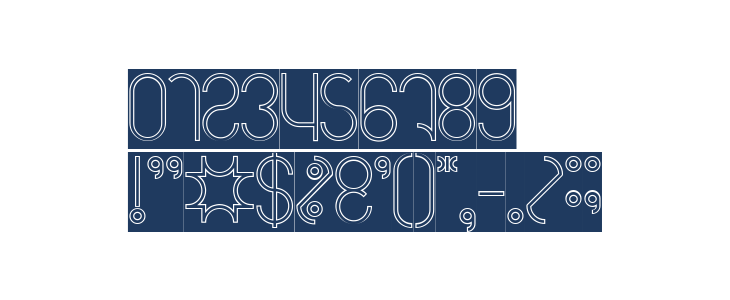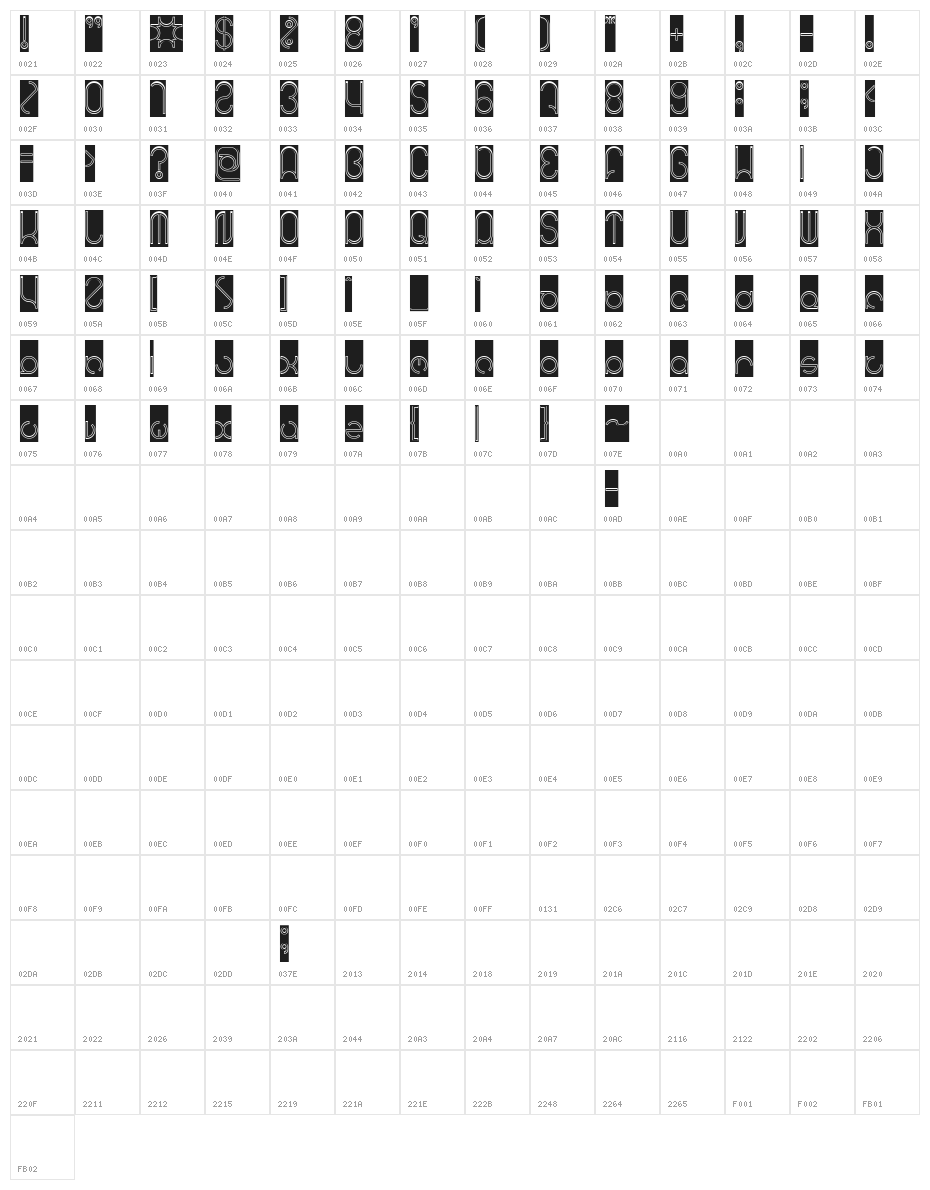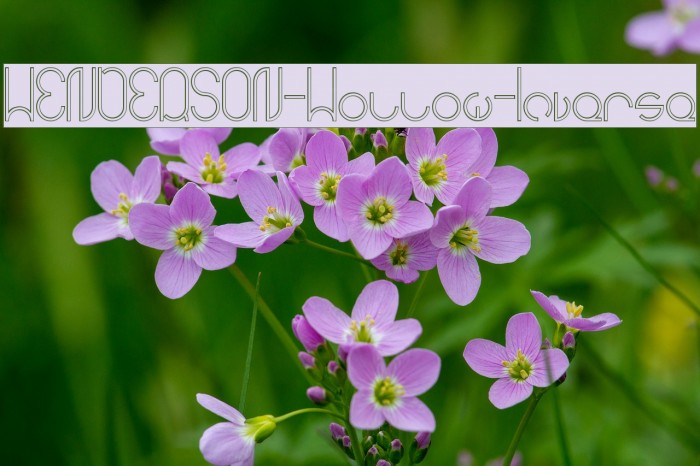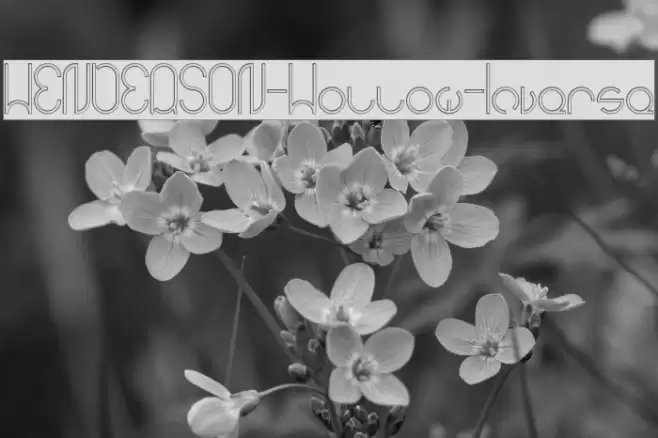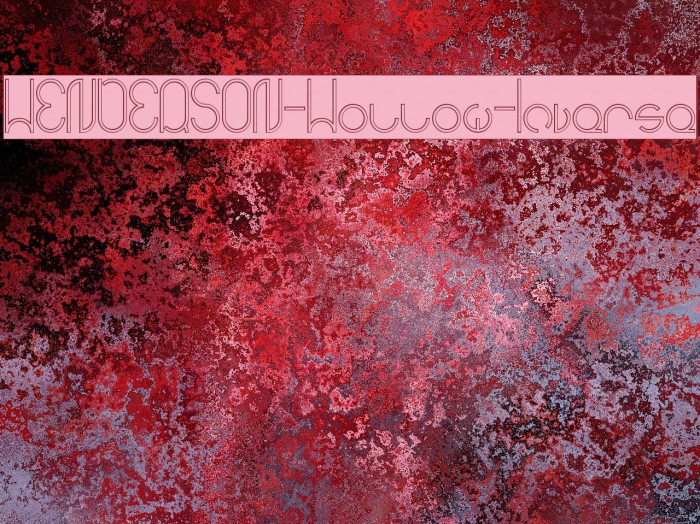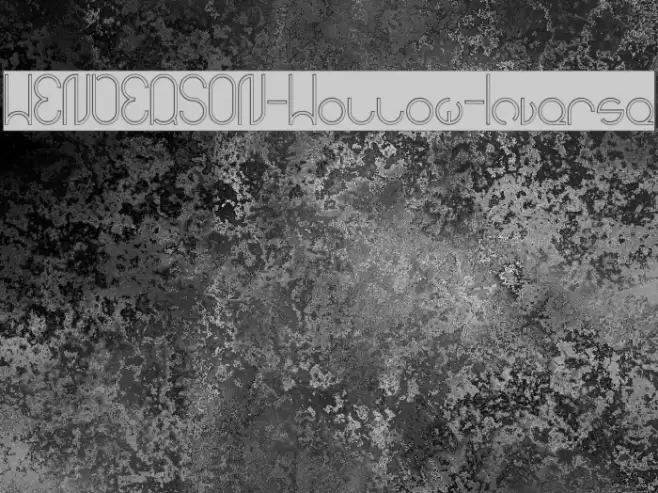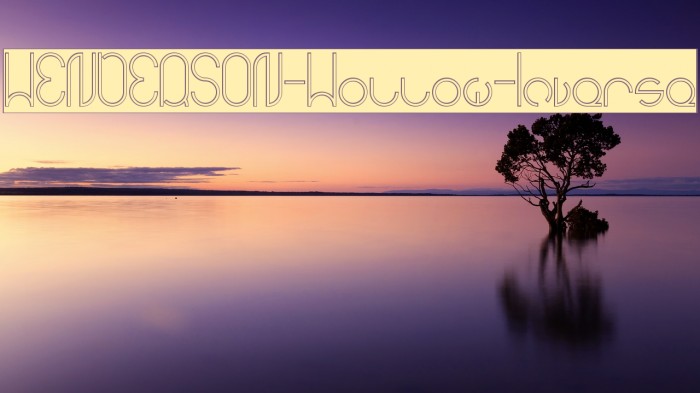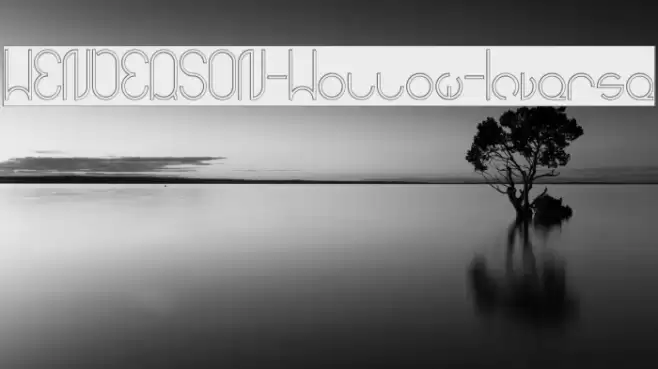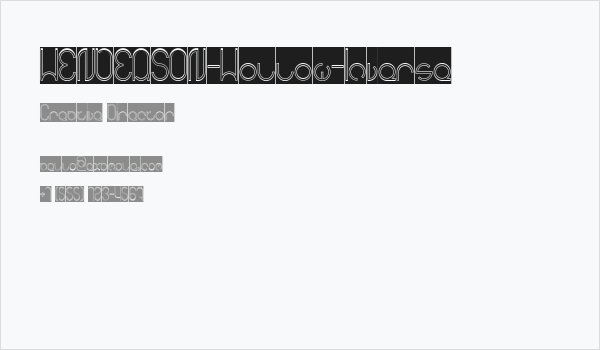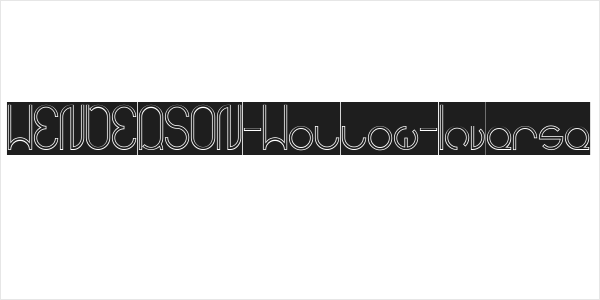
HENDERSON-Hollow-Inverse Font
HENDERSON-Hollow-Inverse Description
This font features a unique hollow design with an inverse style, creating a striking visual effect. The characters are outlined with a consistent stroke width, giving them a modern and futuristic appearance. The uppercase and lowercase letters maintain a geometric structure, with rounded edges and clean lines. Numbers and special characters follow the same design principles, ensuring uniformity across all glyphs. This font's distinctive style makes it stand out, ideal for projects that require a bold and innovative look.
| Proposed Projects | Ideal for branding, posters, digital media, and any project needing a bold, modern aesthetic. |